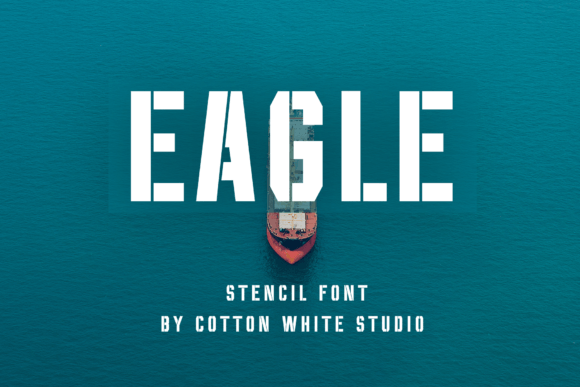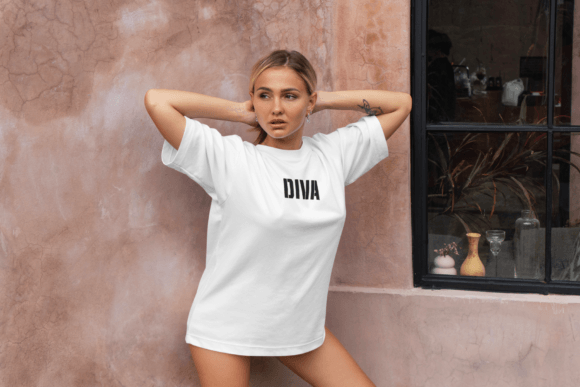
Eagle Font
Stencil Font is an easy-to-spot and modern display font. This font is neatly crafted and highly detailed. Whatever the topic, this font will be a wonderful asset to your font library, as it has the potential to enhance any creation.